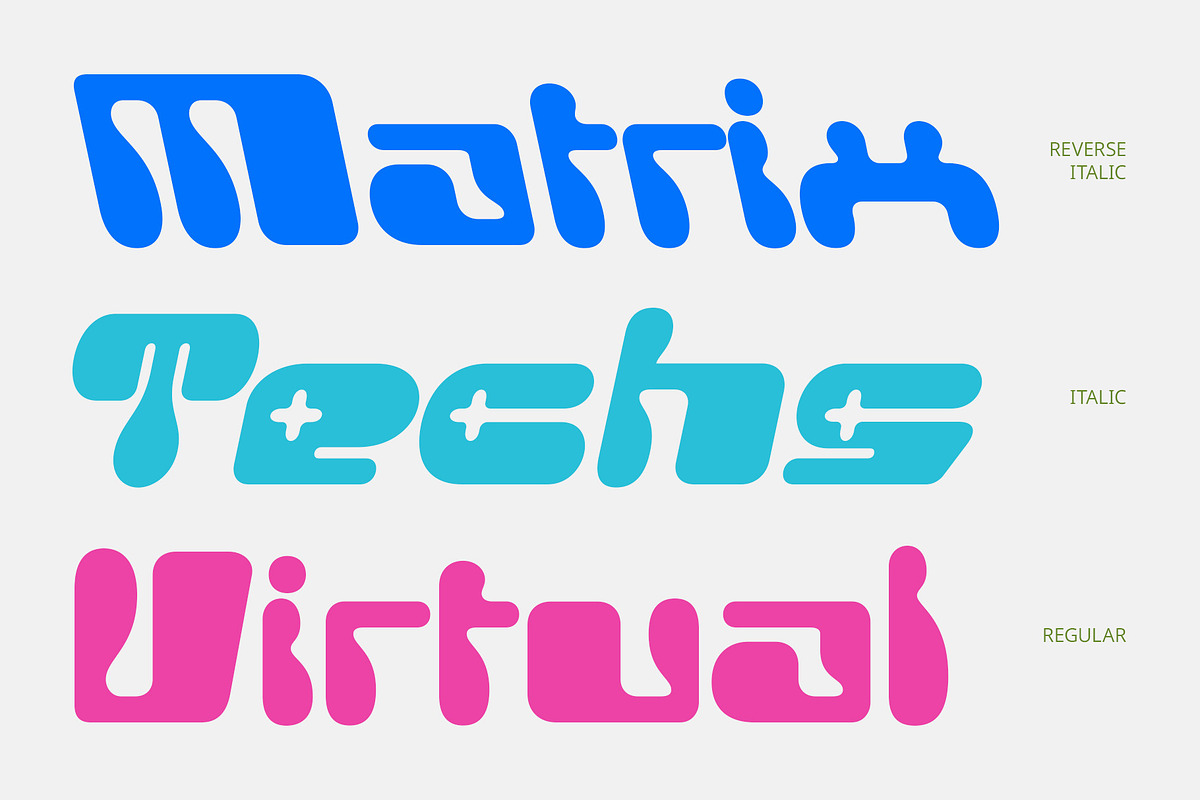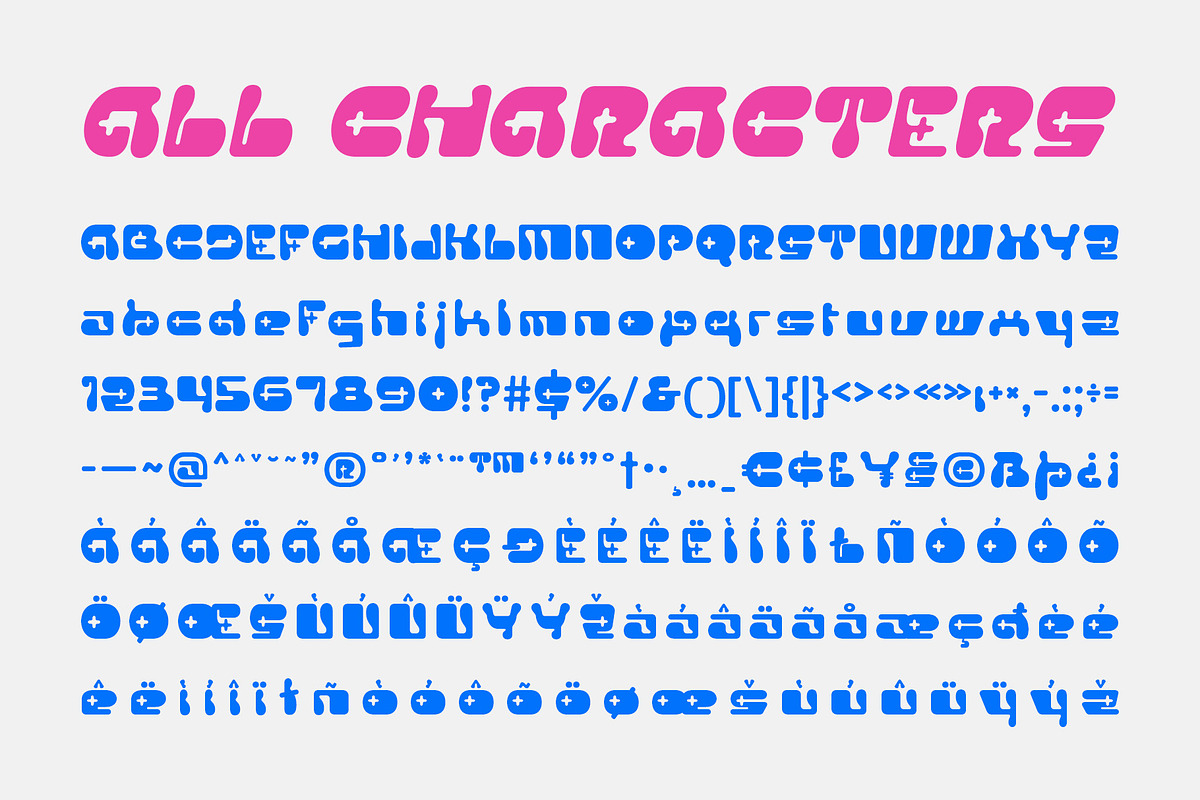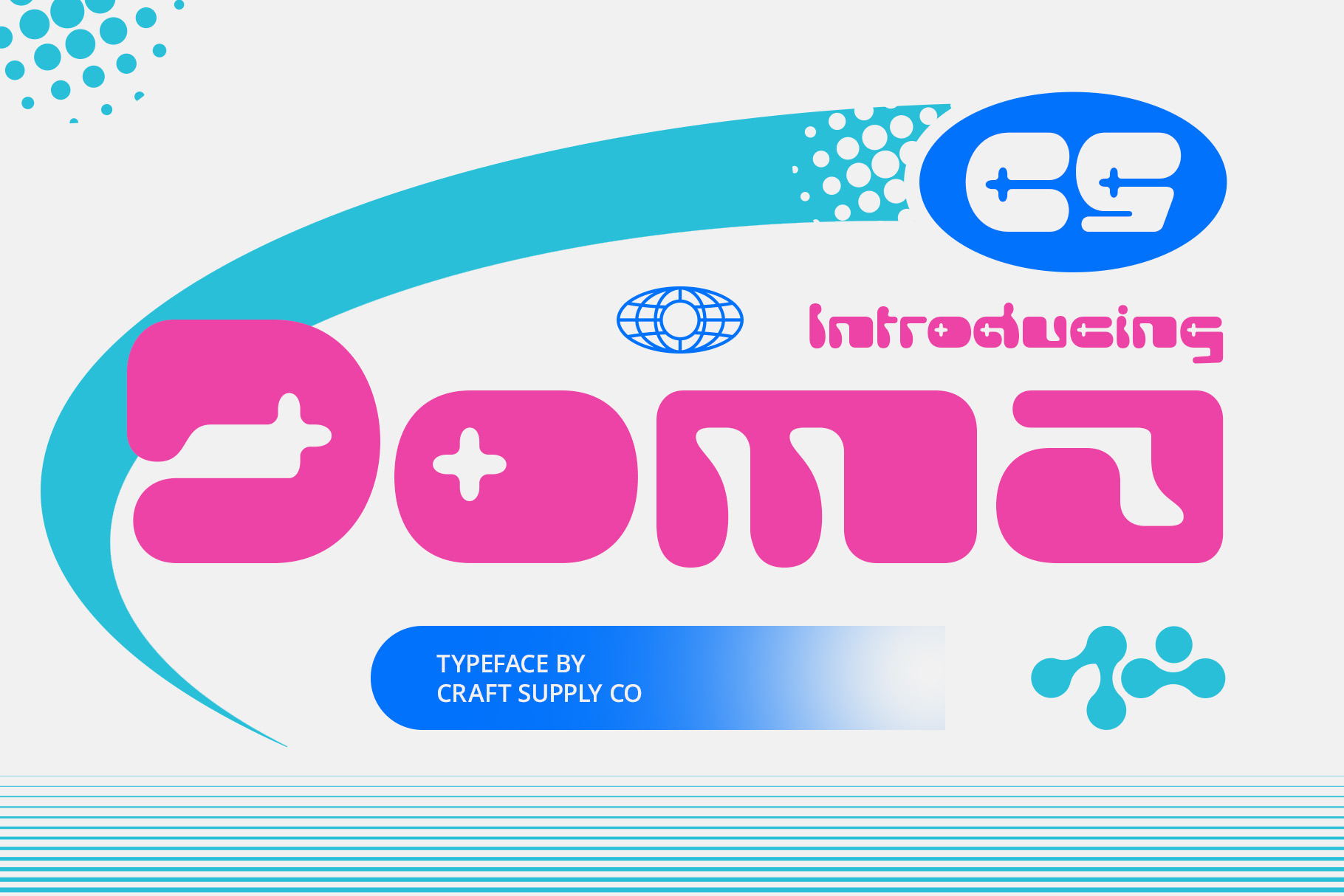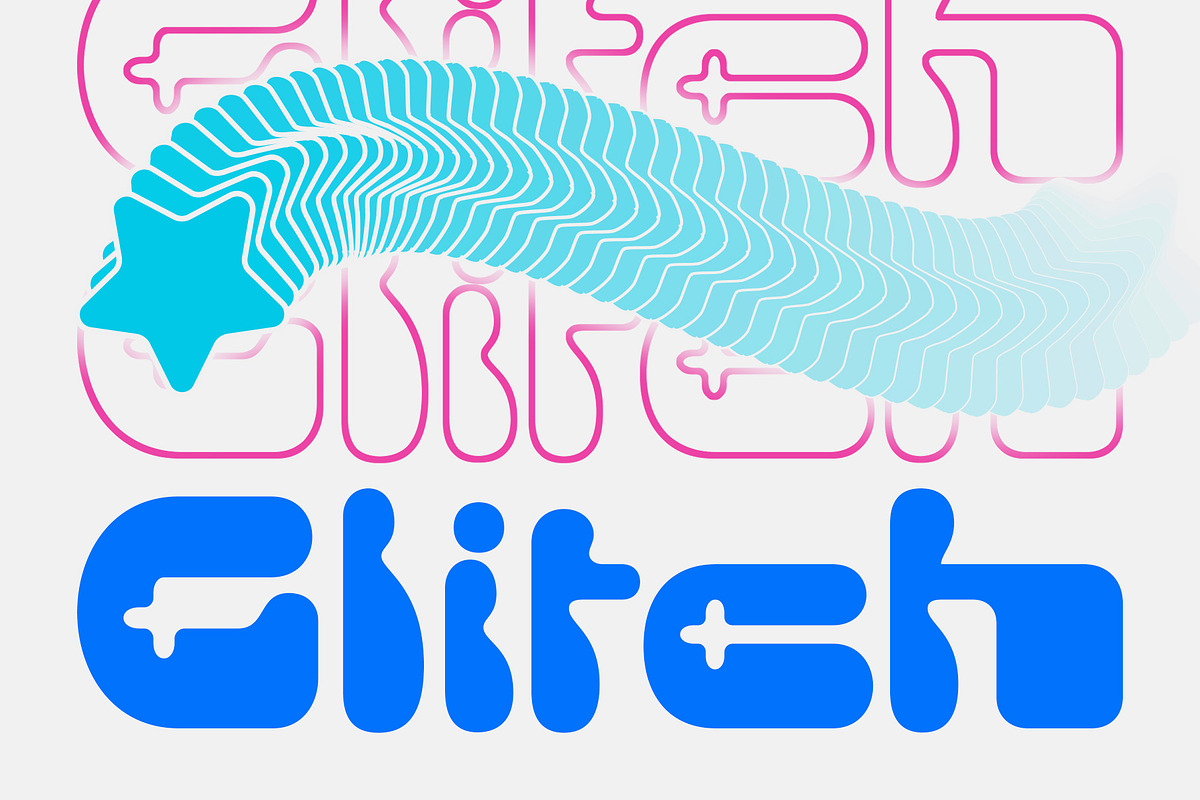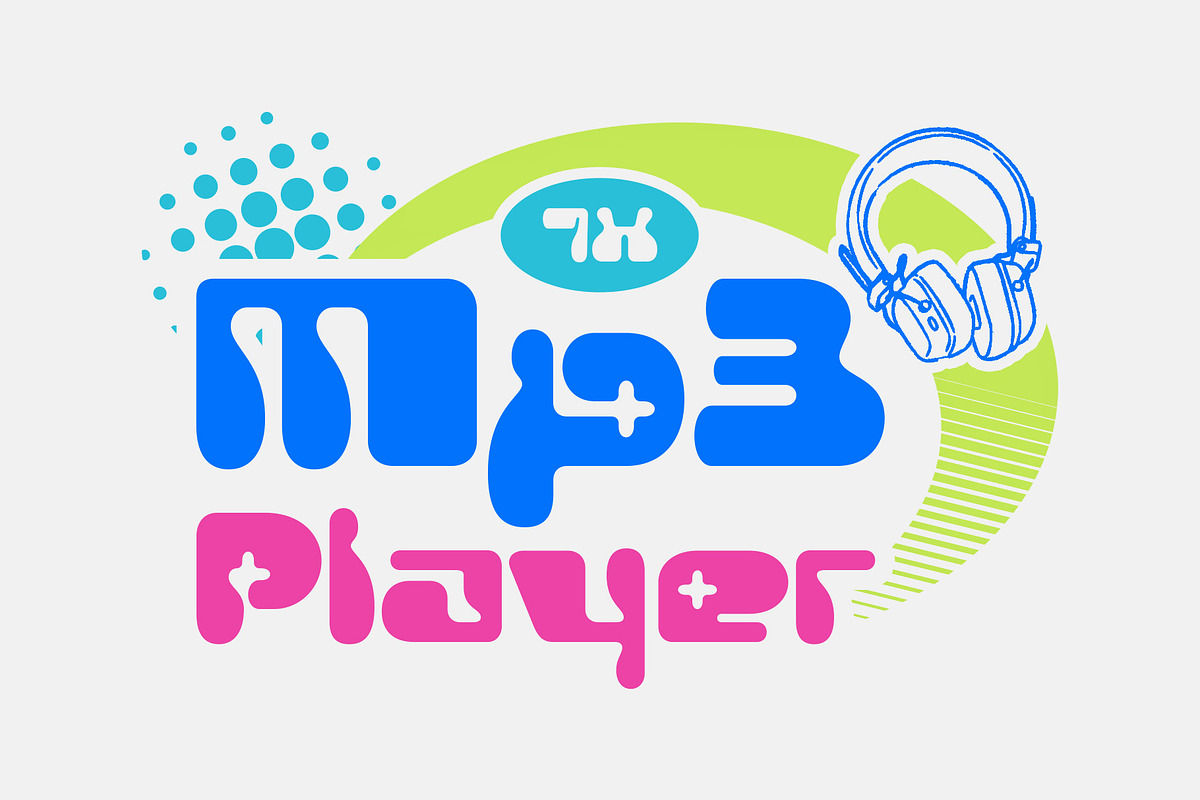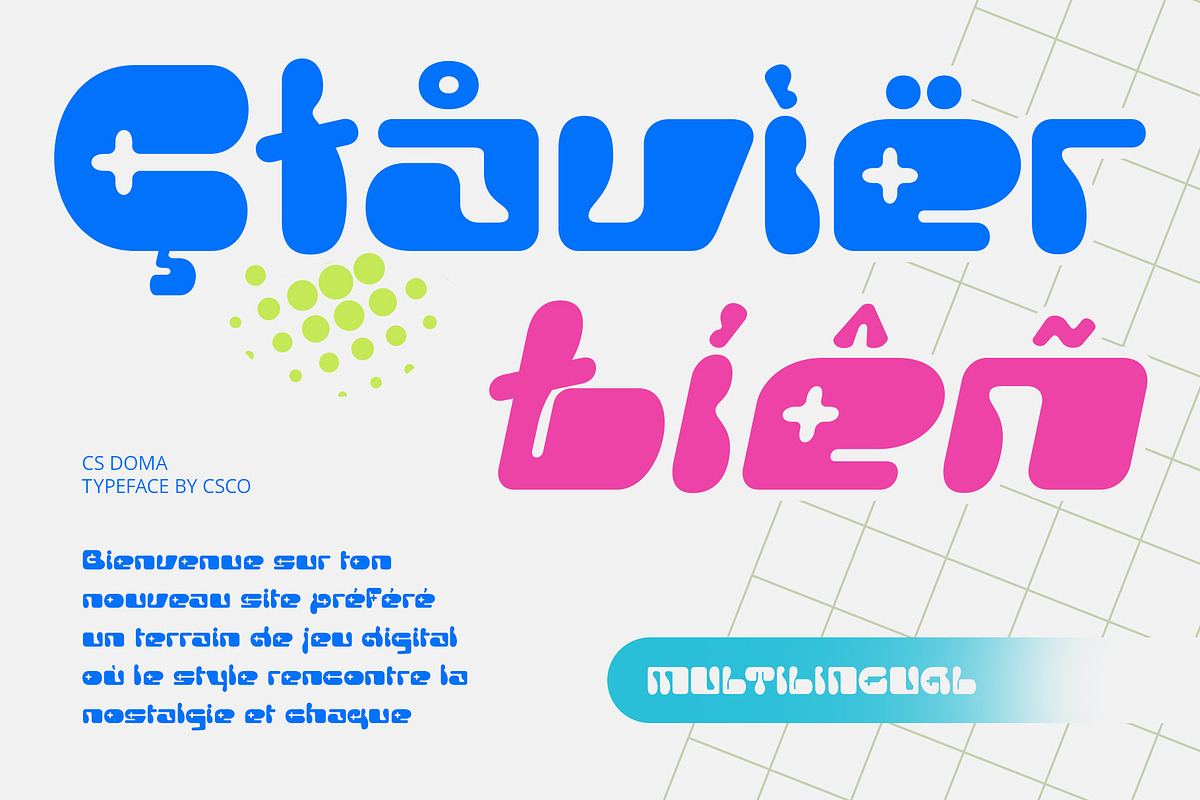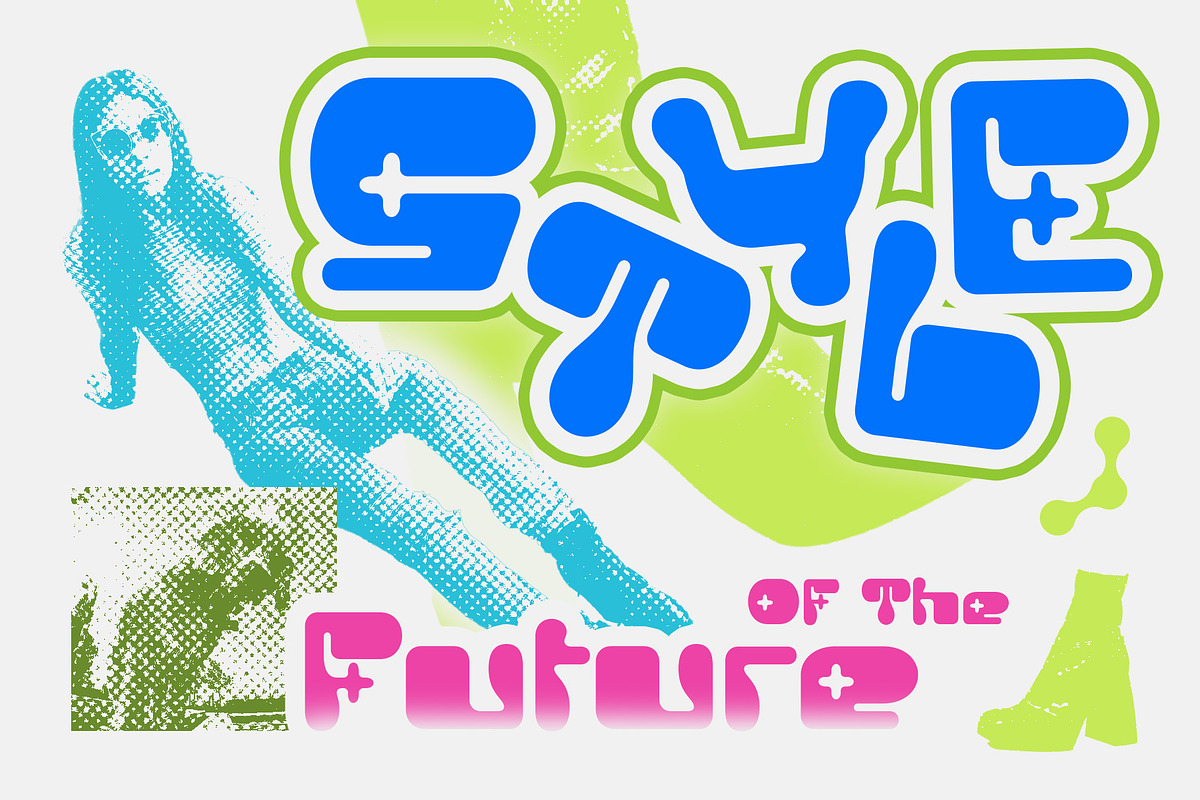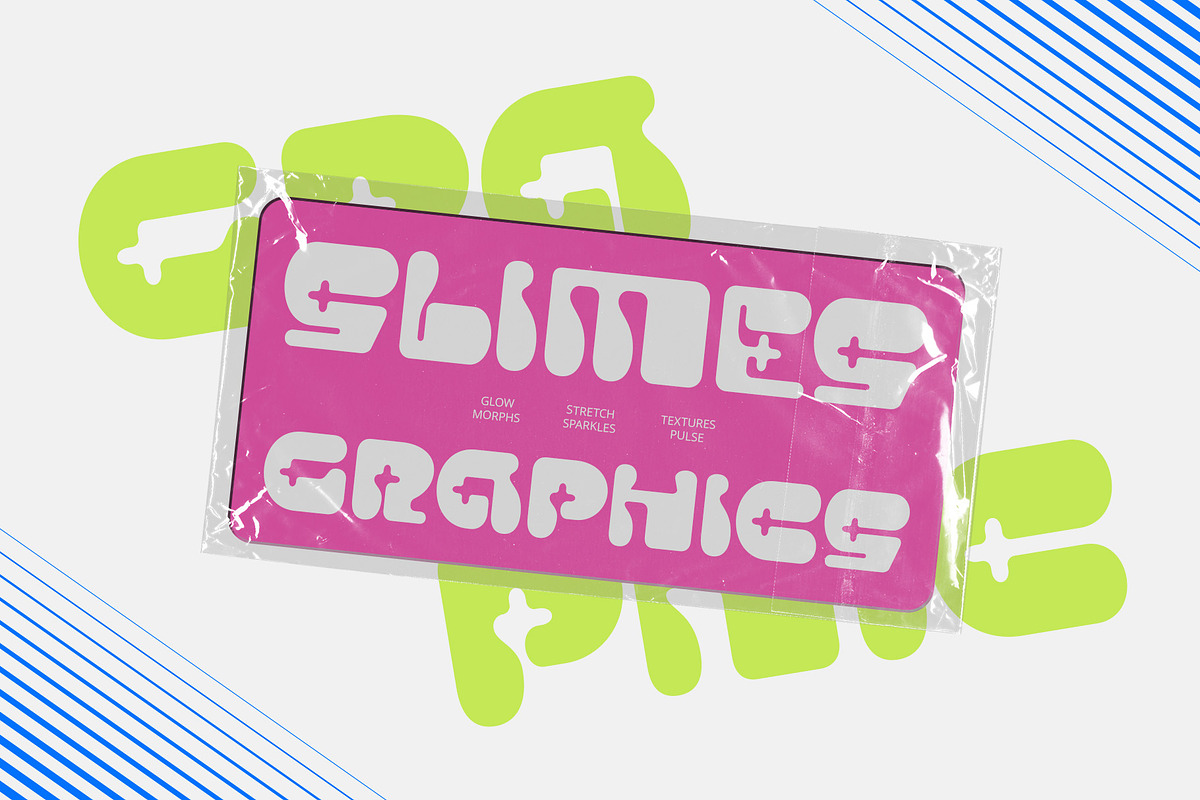
CS Doma – Y2K Font
CS Doma – Y2K Font: A Blast of Bubble Pop Nostalgia
Bold Display Font with Y2K Vibes CS Doma is a bold display font that captures the essence of the Y2K era with its bubbly shapes and playful curves. Bursting with personality, it channels the energy and optimism of late ’90s and early 2000s aesthetics—perfect for designs that want to make a bold, joyful statement.
Cute, Funky, and Full of Personality The font’s rounded, exaggerated forms give it a distinctly funky and cute feel, echoing the fun-loving, futuristic optimism of the early digital age. Its expressive style is great for evoking nostalgia while still feeling fresh and imaginative in today’s design landscape.
Perfect for Retro-Modern Visuals Ideal for projects that blend retro inspiration with modern flair, CS Doma thrives in music posters, fashion branding, packaging, and visual campaigns that embrace bright colors, pop culture, and experimental layouts. It adds instant personality and charm to any composition.
Creative Energy for Youthful Brands CS Doma’s vibrant design language is a great match for brands and creatives that want to stand out with confidence and creativity. Whether you’re designing for youth markets, digital content, or throwback-themed events, this font brings joyful movement and eye-catching appeal.
- CS Doma Regular
- CS Doma Italic
- CS Doma Reverse Italic